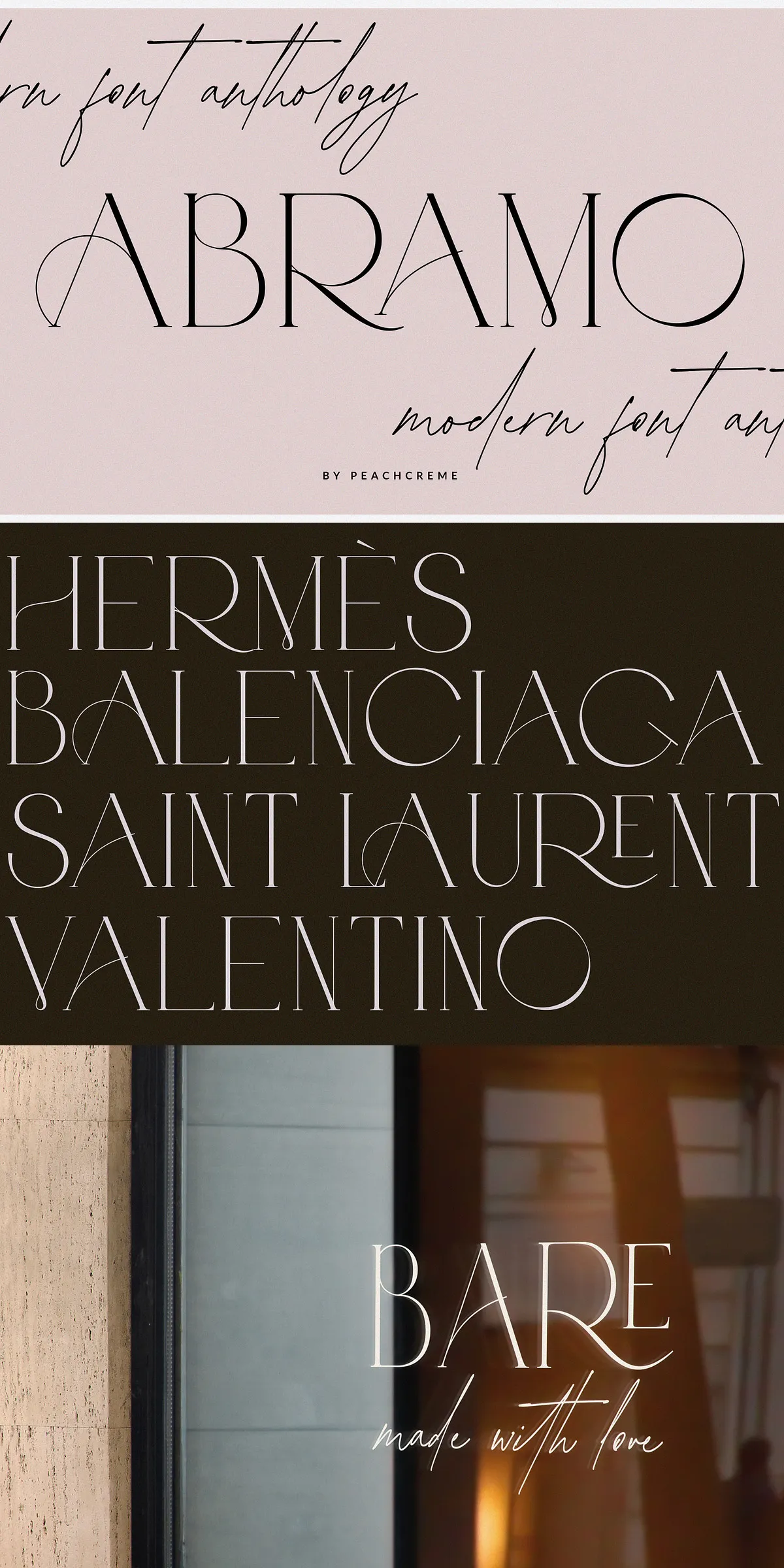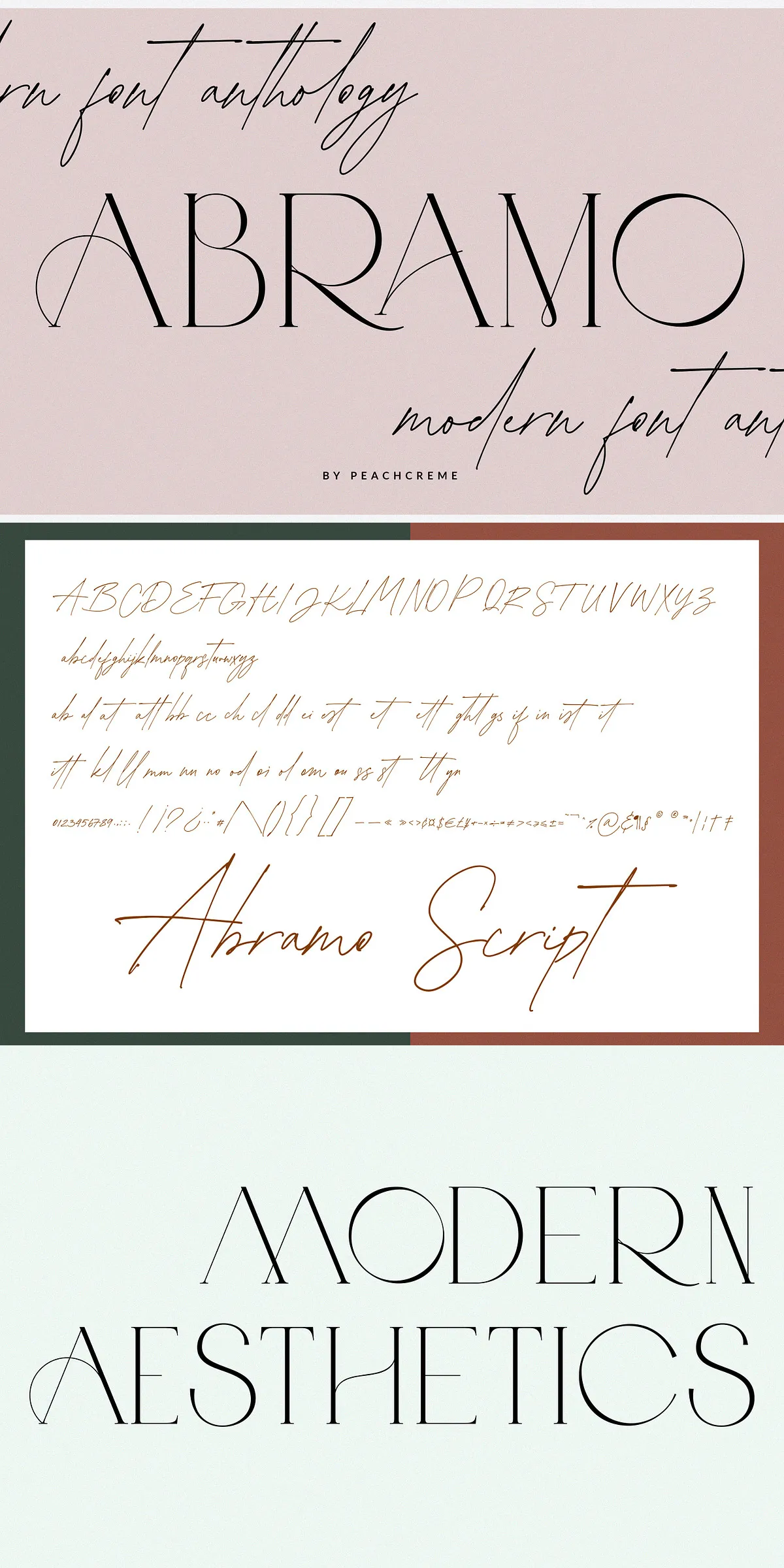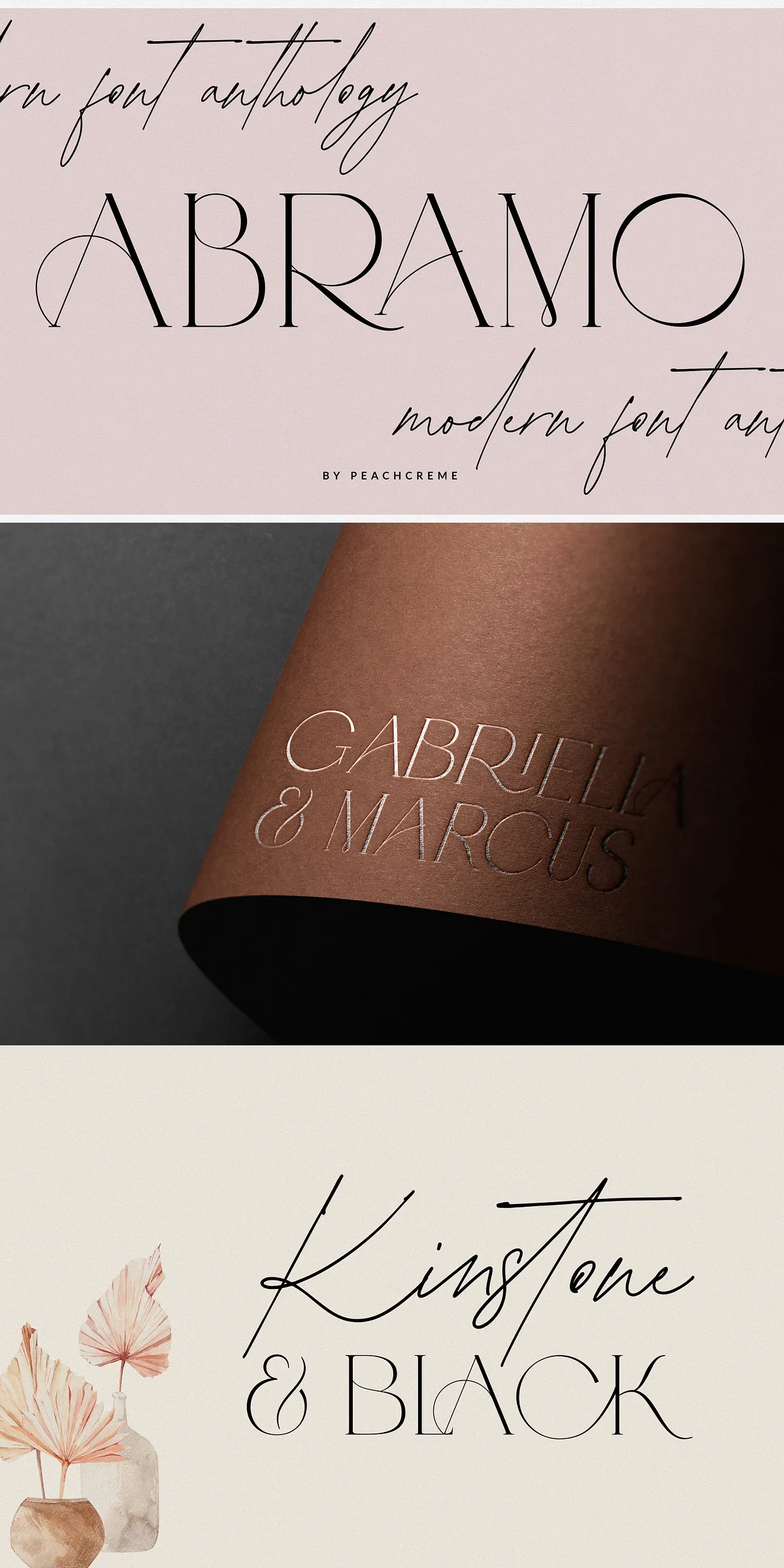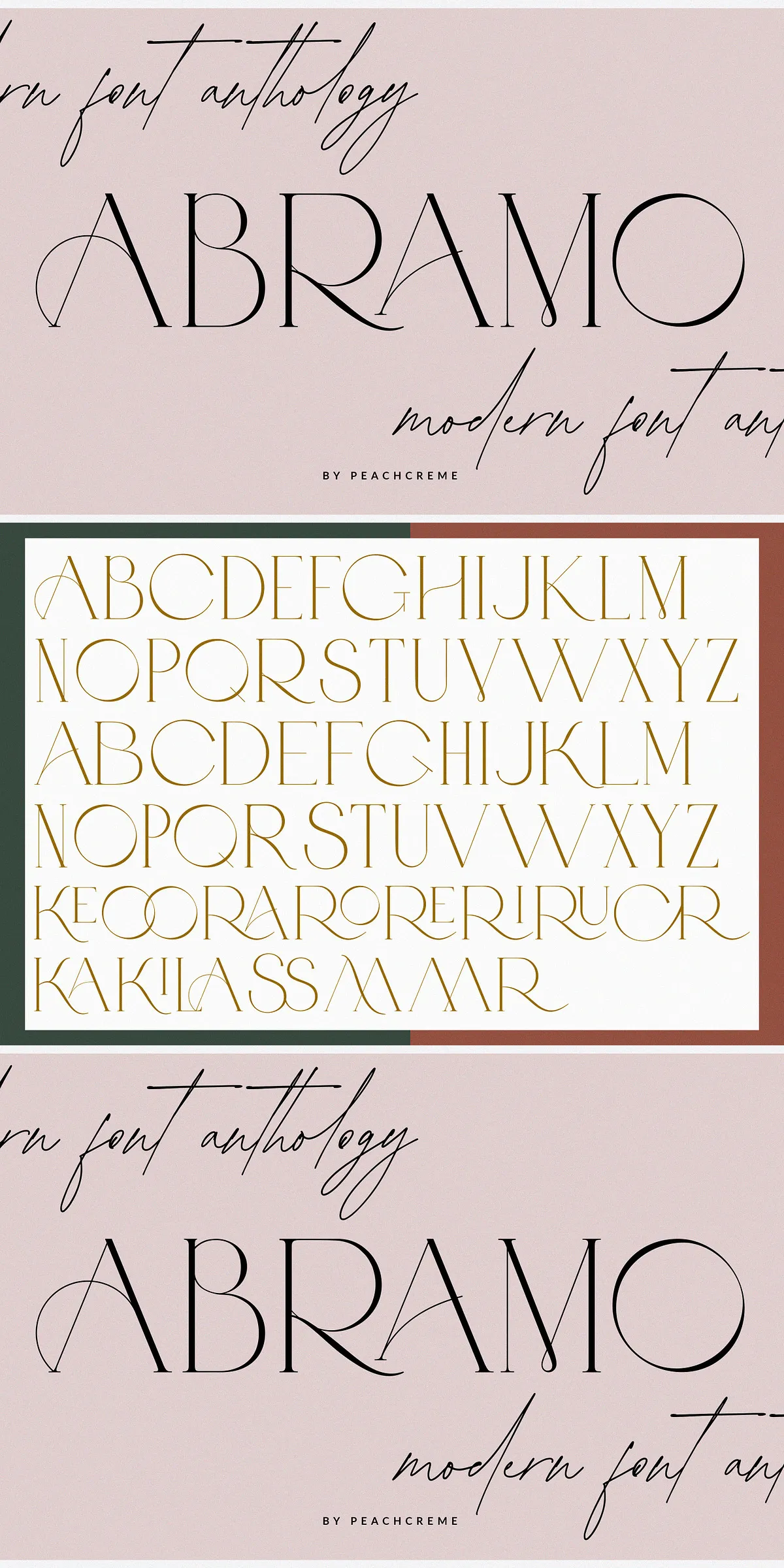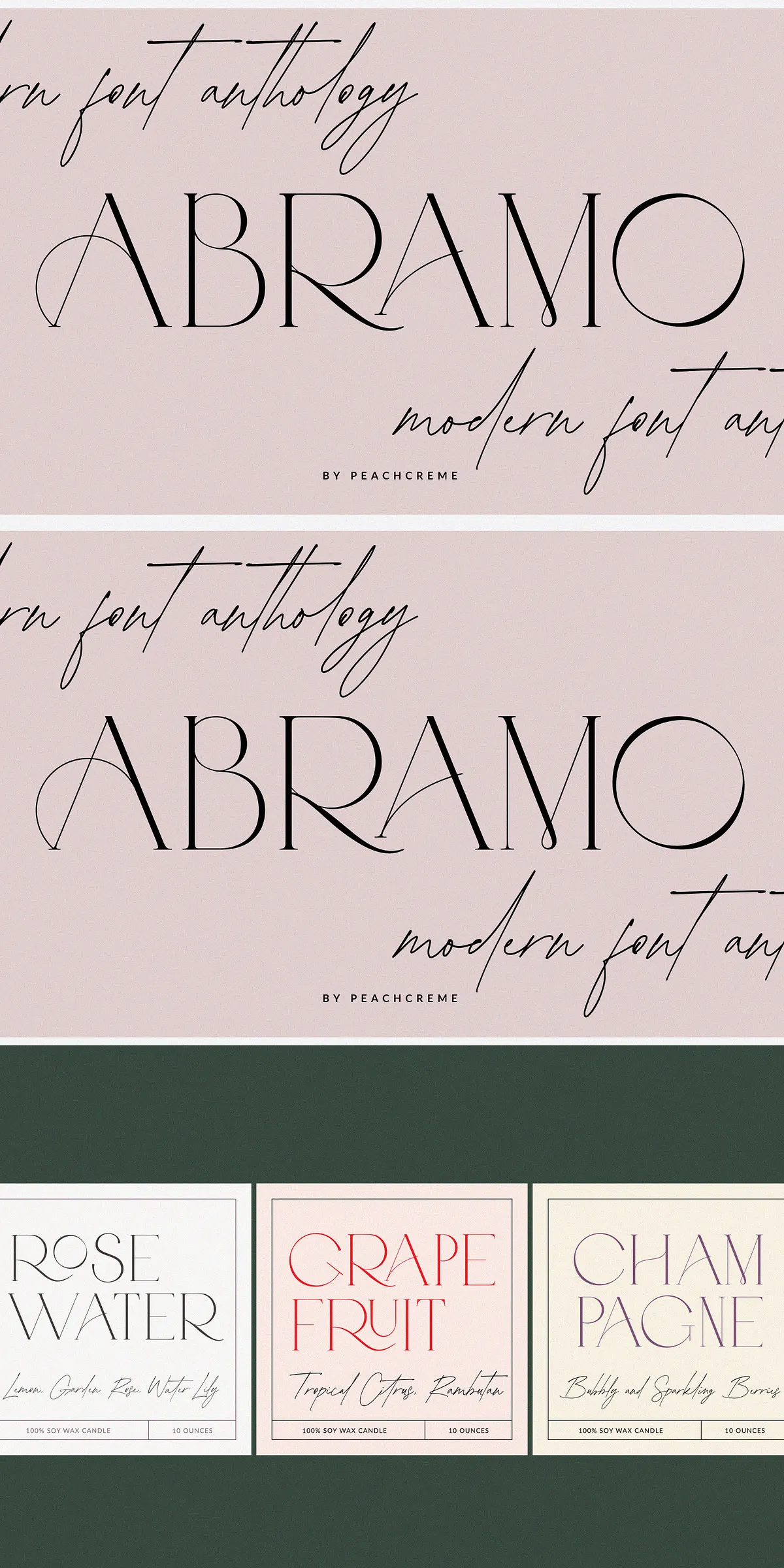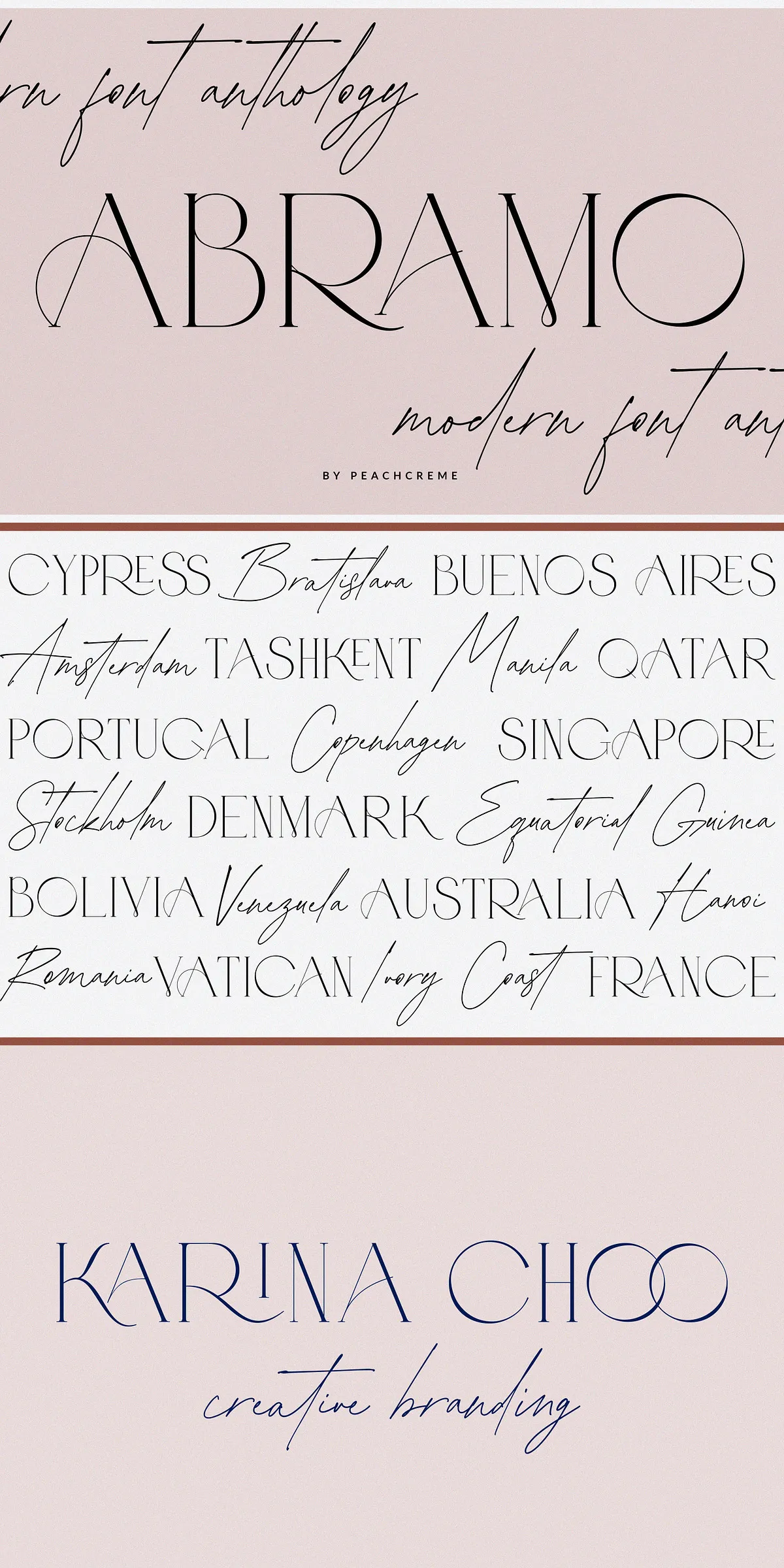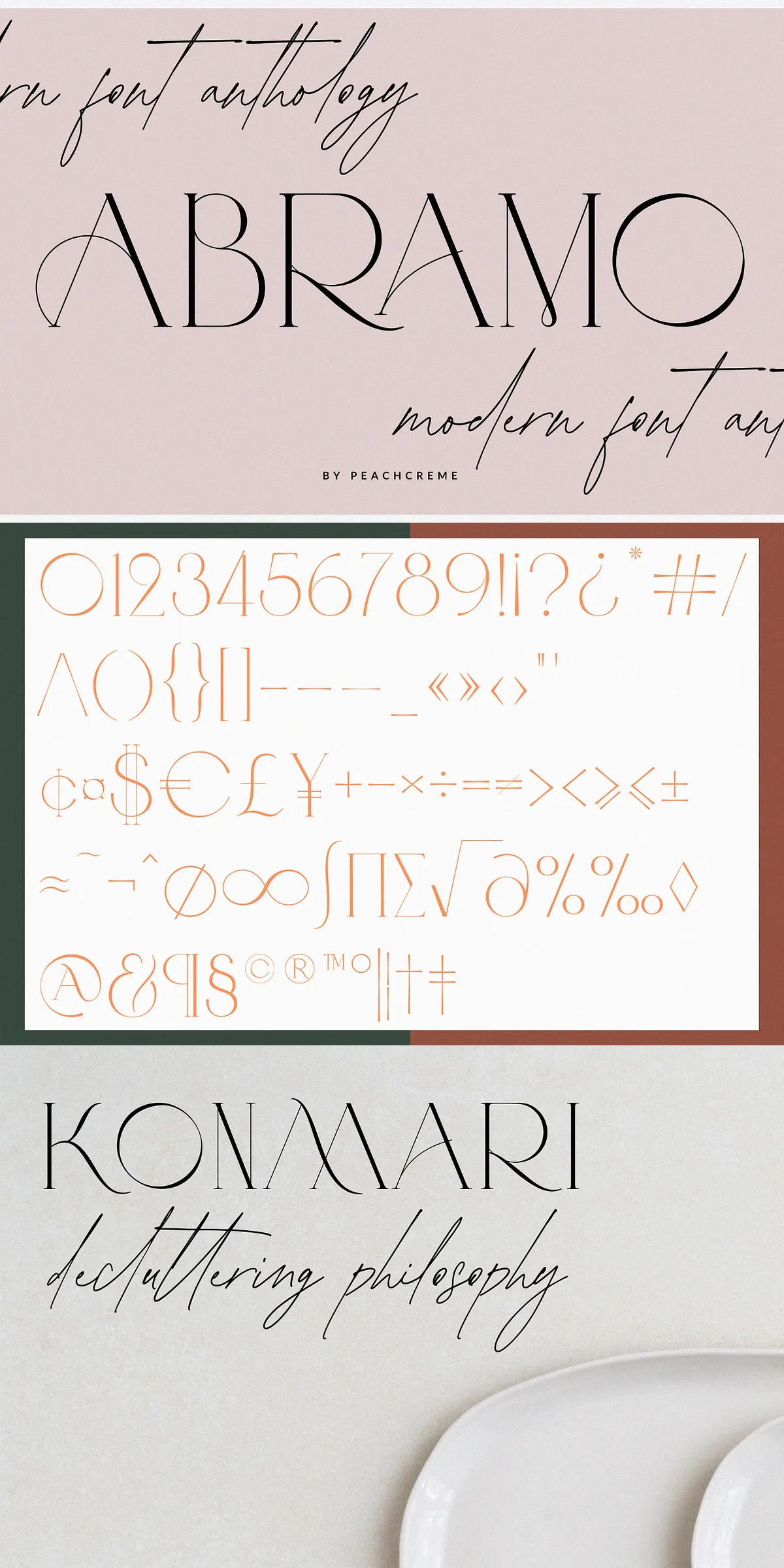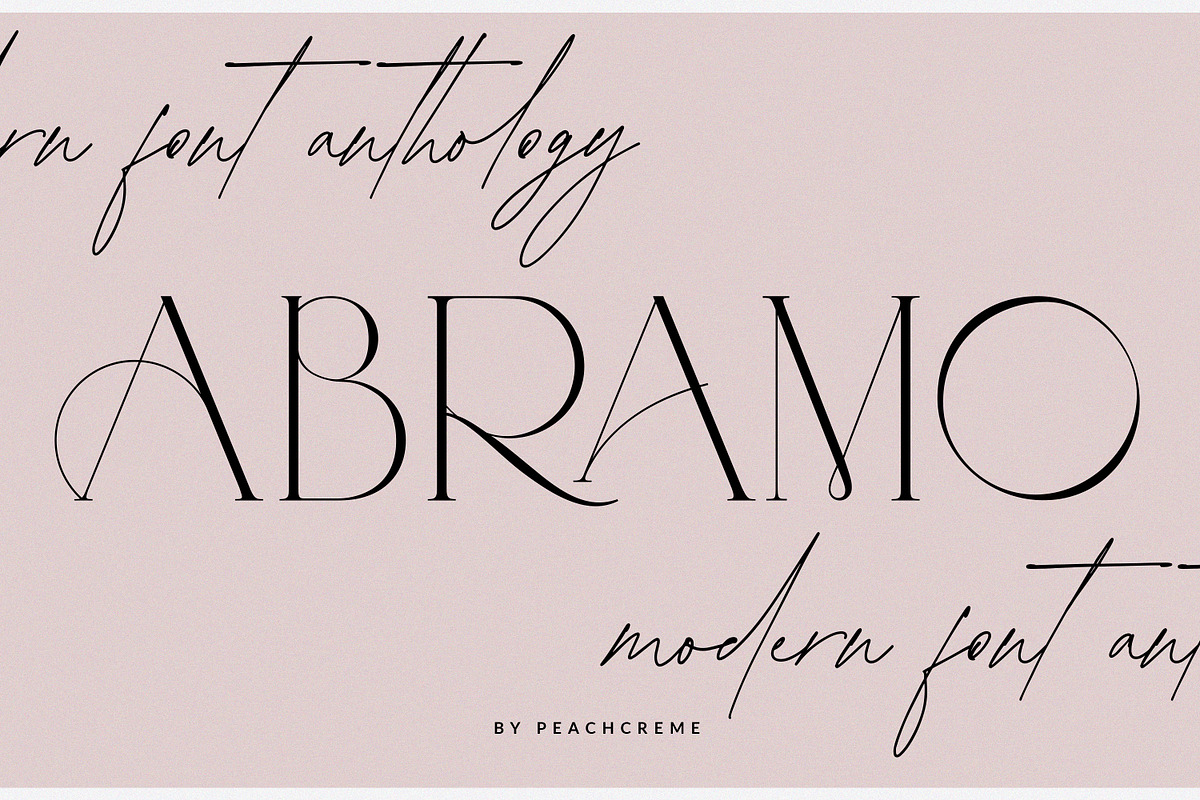
ABRAMO// Modern Font Duo
Step into the spotlight with Abramo, a dynamic two-part font family that unites the power of a clean, all-caps serif with the elegance of a flowing script. Designed for bold statements and refined detail, Abramo is engineered to elevate your creative projects—from corporate logos and social media visuals to wedding invitations, packaging, and digital branding. This is not just a font pair; it’s a complete design language.
Powerful Pairing, Effortless Harmony
What makes Abramo truly special is how seamlessly the serif and script styles work together. The Abramo Serif delivers architectural strength with crisp, modern lines and perfectly balanced proportions—ideal for headlines that command attention. Meanwhile, the Abramo Script brings soul, movement, and personal touch with flowing loops and graceful letterforms that mimic handwritten finesse.
When used in tandem, they create visual rhythm, contrast, and balance. Combine the serif for a strong headline and the script for a personalized signature or tagline—this duo is crafted for design synergy at its finest.
Full Technical Toolkit for Seamless Integration
• High-Quality OpenType Features: Access ligatures, stylistic alternates, and contextual forms for refined typography without extra effort.
Perfect for Every Creative Use Case
Abramo isn’t designed to fit just one niche—it’s built for versatility. Whether you’re a brand designer, social media content creator, or event planner, this font duo is your go-to solution:
• Brand Identity & Logo Design: Create striking logos with contrasting typography—strong serif for the name, elegant script for the tagline.
• Wedding & Event Invitations: Add sophistication and personality to save-the-dates, seating cards, and ceremony programs.
• Digital & Print Publications: Use in magazine covers, flyers, brochures, and product catalogs for premium visual appeal.
• Package & Label Design: Give cosmetics, beverages, or artisanal goods a modern, luxe look with matching serif and script elements.
• Website Headlines & UI Text: Apply the serif for clarity and impact, and the script for a personalized, human touch in CTAs or testimonials.
Designed for Creativity Without Compromise
Abramo is not about limitations. It’s about freedom. With its clean lines, professional proportions, and expressive flair, this font set gives you the tools to express bold ideas, tell authentic stories, and craft visuals that resonate.
No more choosing between strength and beauty. With Abramo, you get both—easily, instantly, and with complete control. Whether you’re designing for a luxury fashion brand, a wellness business, or a personal portfolio, this duo delivers polished, professional results every time.